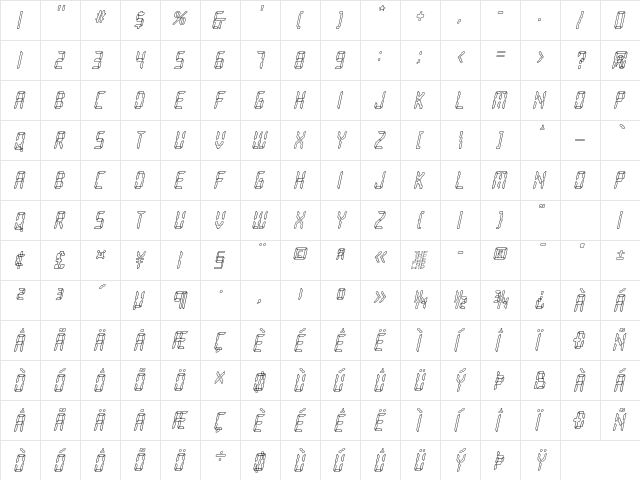
Loopy Italic
Design Context for Loopy Typeface
Loopy is a composed and adaptable typeface that performs quietly and consistently across a wide range of design contexts. The dynamic lean of this cut emphasises speed and emphasis in any layout.
Pro Tip: Use Loopy for emphasis, pull quotes, and subheadings where its slanted energy can add rhythm to the layout.